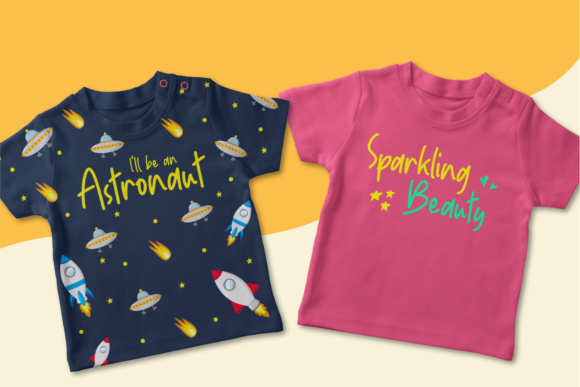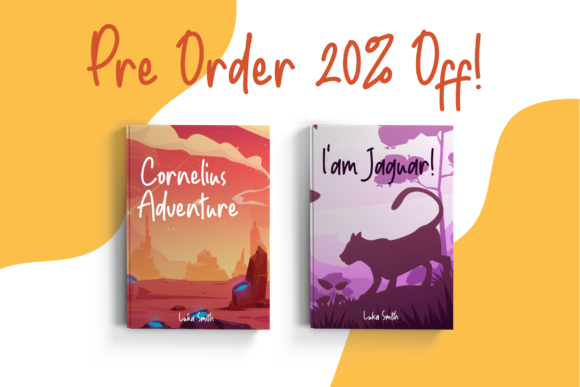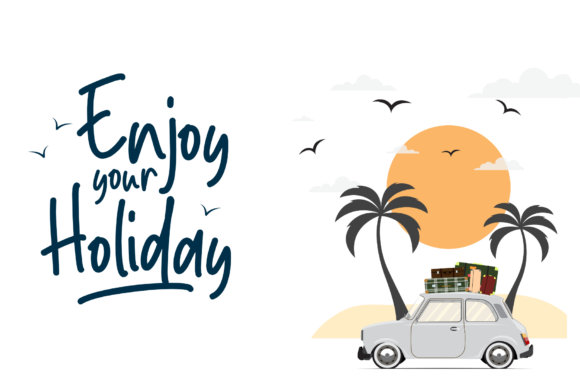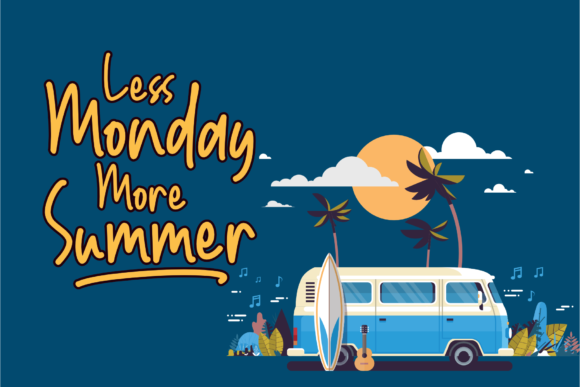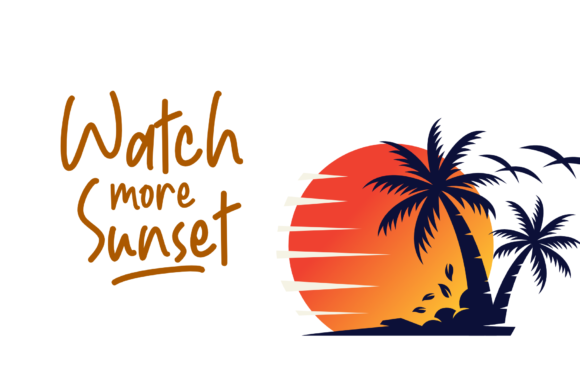
Aurabelle Font: The Sweet and Friendly Handwritten Font for Your Creative Projects
Aurabelle is a beautiful, sweet, and friendly handwritten font that has been making waves in the design community. Its natural and unique style makes it incredibly fitting to a large pool of designs, and the only limit is your imagination! In this article, we’ll dive into the world of Aurabelle Font, exploring its features, uses, and benefits for designers and crafters.
What is Aurabelle Font?
Aurabelle Font is a type of handwritten font that exudes warmth, friendliness, and approachability. Its unique style is characterized by flowing lines, subtle imperfections, and a dash of personality. This font is perfect for designers and crafters looking to add a personal touch to their projects, whether it’s a logo, branding, packaging, or social media graphics.
Features of Aurabelle Font
Aurabelle Font boasts several features that make it a standout in the world of typography. Some of its notable features include:
- Handwritten style: Aurabelle Font has a genuine handwritten look that adds a touch of warmth and personality to any design.
- Natural and unique: The font’s natural and unique style makes it versatile and suitable for a wide range of designs.
- Easy to read: Despite its handwritten style, Aurabelle Font is easy to read, making it perfect for body text and captions.
- Flexible: The font is highly flexible and can be used in various design contexts, from digital to print.
Uses of Aurabelle Font
Aurabelle Font is incredibly versatile and can be used in a variety of design projects, including:
- Branding and logos: The font’s unique style makes it perfect for creating memorable logos and branding materials.
- Packaging design: Aurabelle Font can add a touch of personality to packaging design, making products stand out on store shelves.
- Social media graphics: The font is ideal for creating engaging social media graphics, such as quotes, posters, and ads.
- Stationery and cards: Aurabelle Font can be used to create beautiful stationery, greeting cards, and invitations.
Benefits of Using Aurabelle Font
Using Aurabelle Font in your design projects comes with several benefits, including:
- Unique and creative designs: The font’s unique style allows designers to create one-of-a-kind designs that stand out from the crowd.
- Emotional connection: Aurabelle Font’s friendly and approachable style can help create an emotional connection with the target audience.
- Time-saving: The font’s versatility and ease of use save designers time and effort in the design process.
Tips for Using Aurabelle Font
To get the most out of Aurabelle Font, here are some tips to keep in mind:
- Experiment with colors: The font’s unique style pairs well with a variety of colors, so don’t be afraid to experiment and find the perfect combination.
- Mix and match: Combine Aurabelle Font with other fonts to create a unique and visually appealing design.
- Pay attention to spacing: Make sure to adjust the spacing between letters and words to ensure the text is easy to read.
- Use it consistently: Use Aurabelle Font consistently throughout your design project to create a cohesive look.
Aurabelle Font is a sweet and friendly handwritten font that offers a world of creative possibilities for designers and crafters. Its natural and unique style makes it incredibly fitting to a large pool of designs, and the only limit is your imagination! With its versatility, ease of use, and cost-effectiveness, Aurabelle Font is a must-have for anyone looking to add a personal touch to their design projects.